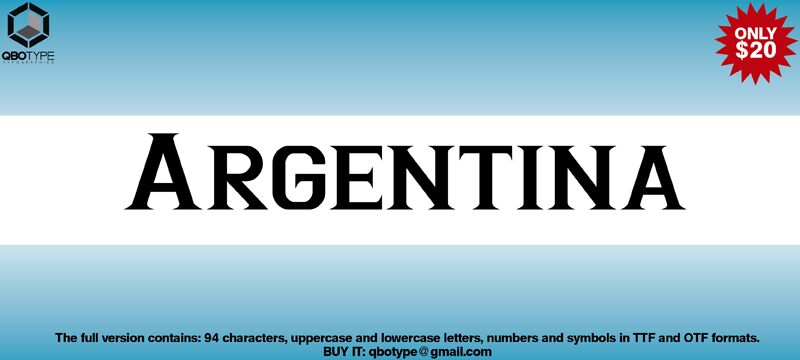
Argentina by Carlos Matteoli, also known as Qbotype, is a free heavy serif display font with towering capitals and forceful, tightly fitted silhouettes. Broad strokes, sharp wedge serifs, and narrow inner spaces give the lettering a carved, poster-like impact.
Packaging offers an especially convincing setting for its dramatic scale, particularly on fashion labels, record sleeves, and event posters with a strong editorial edge. Its blunt geometry can echo cropped photography, hard-edged collage, or oversized pattern work, turning a title into part of the image rather than a detached caption.